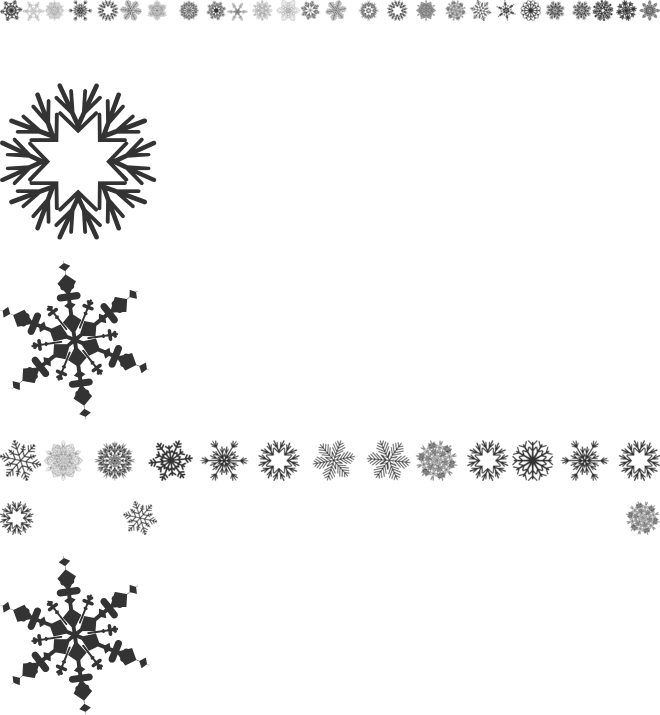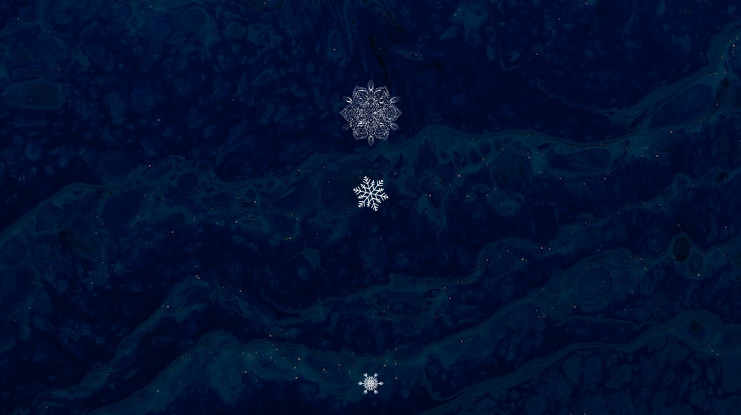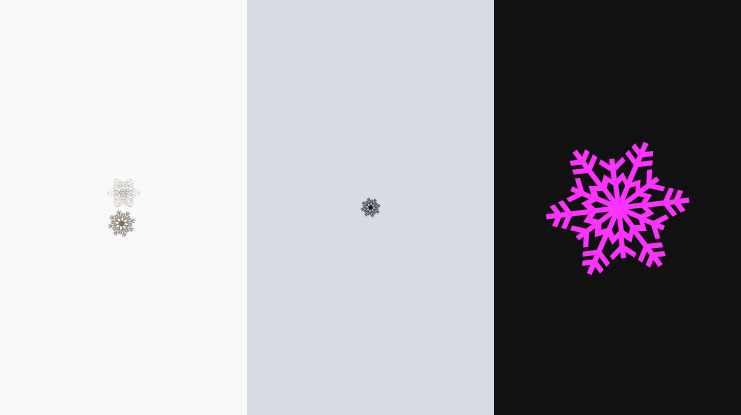
Christmas Snowflakes Font
Christmas Snowflakes is a decorative dingbat typeface featuring 63 unique snowflake glyphs—perfect for holiday cards, seasonal packaging, and winter-themed designs.